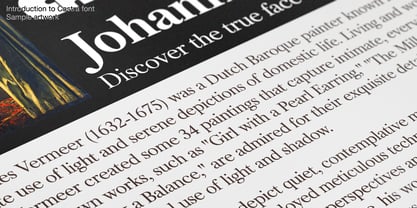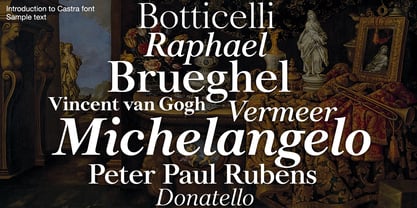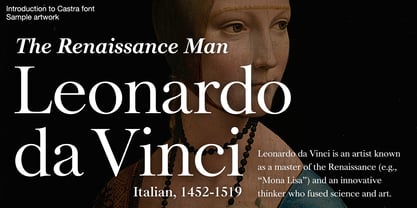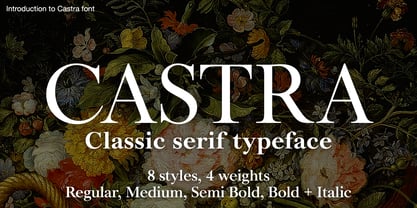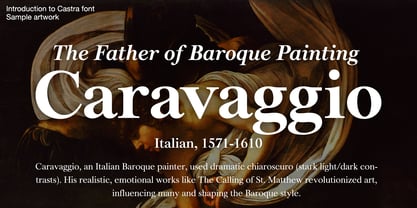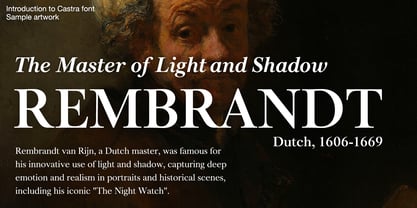
Castra
by Koci
The Castra Font Family was designed by Kensuke Uchida and published by Koci. Castra contains 8 styles and family package options.
Castra is a classic and orthodox serif typeface. Based on a strict skeleton, it is formed by smooth, distortion-free curves and sharp Bracketed Serifs, characterized by its static beauty and imposing stability. By increasing the contrast of the strokes, it gives a smart and somewhat contemporary impression, not just a classical one. Plain and versatile, it can be used for a wide range of applications, including logos, headlines, and longer texts.
Designers: Kensuke Uchida
Publisher: Koci
Foundry: Koci
Design Owner: Koci